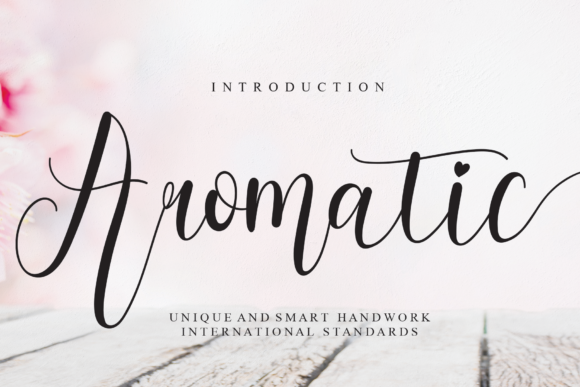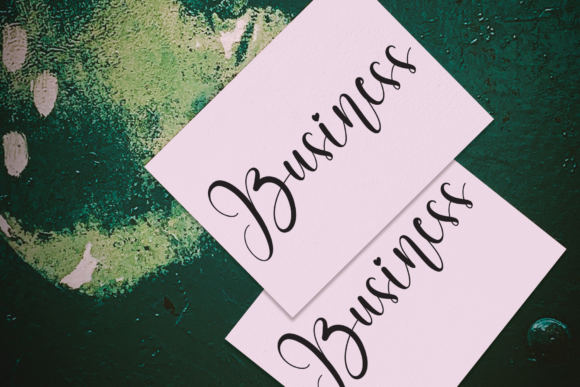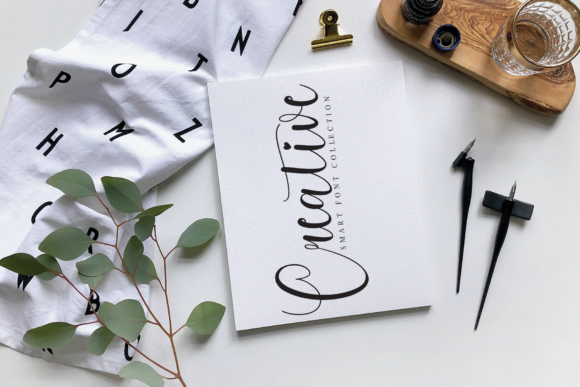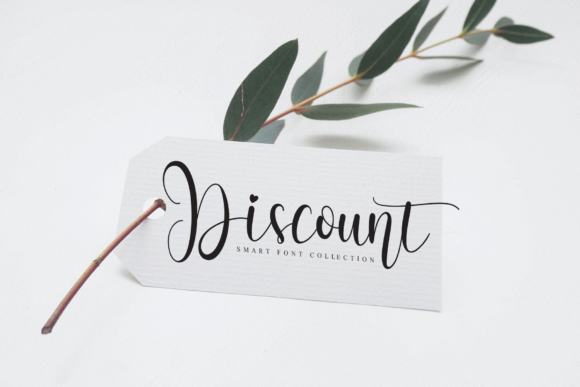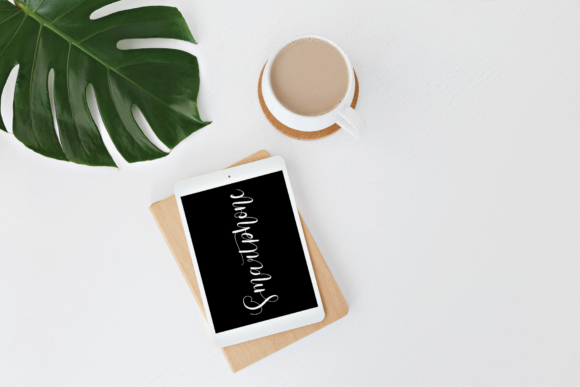
Aromatic Font
About Aromatic Font
Aromatic is a stylish and playful handwritten font. With curly ends and slim characters, this lovely typeface will be an excellent addition to your fonts library, as it can elevate the look of any creation!